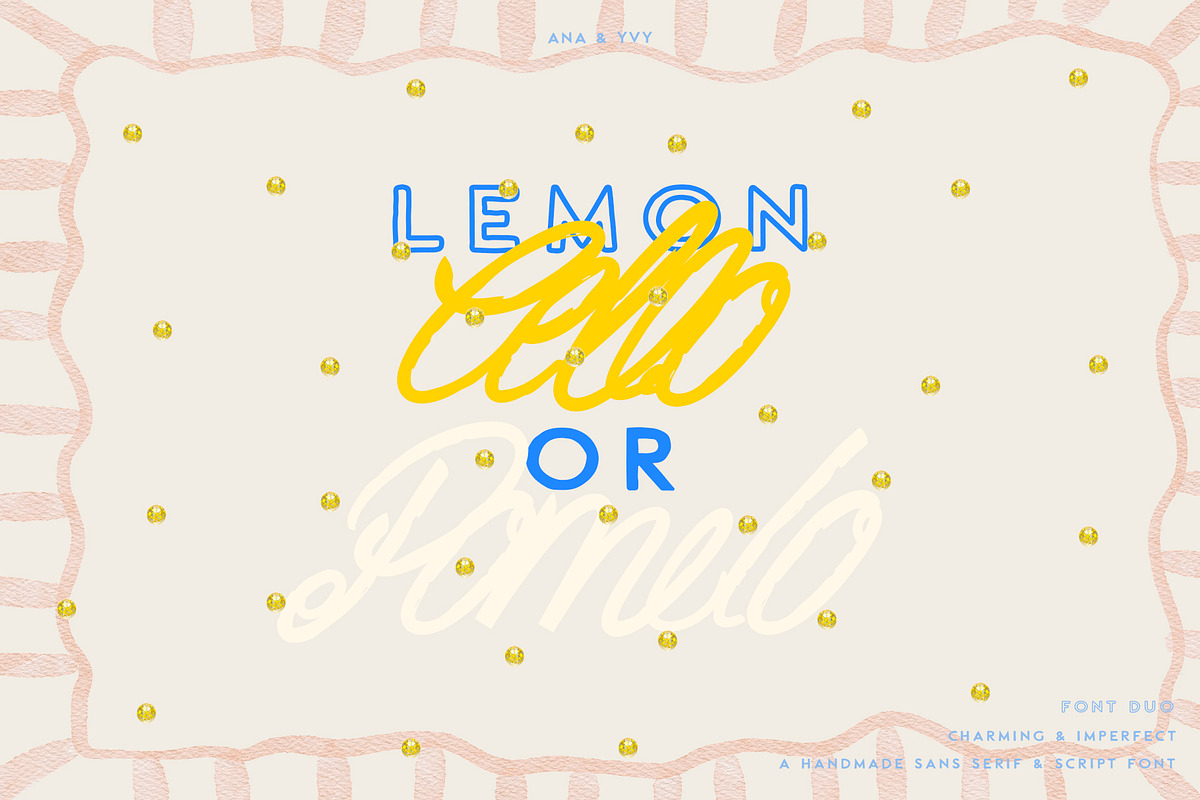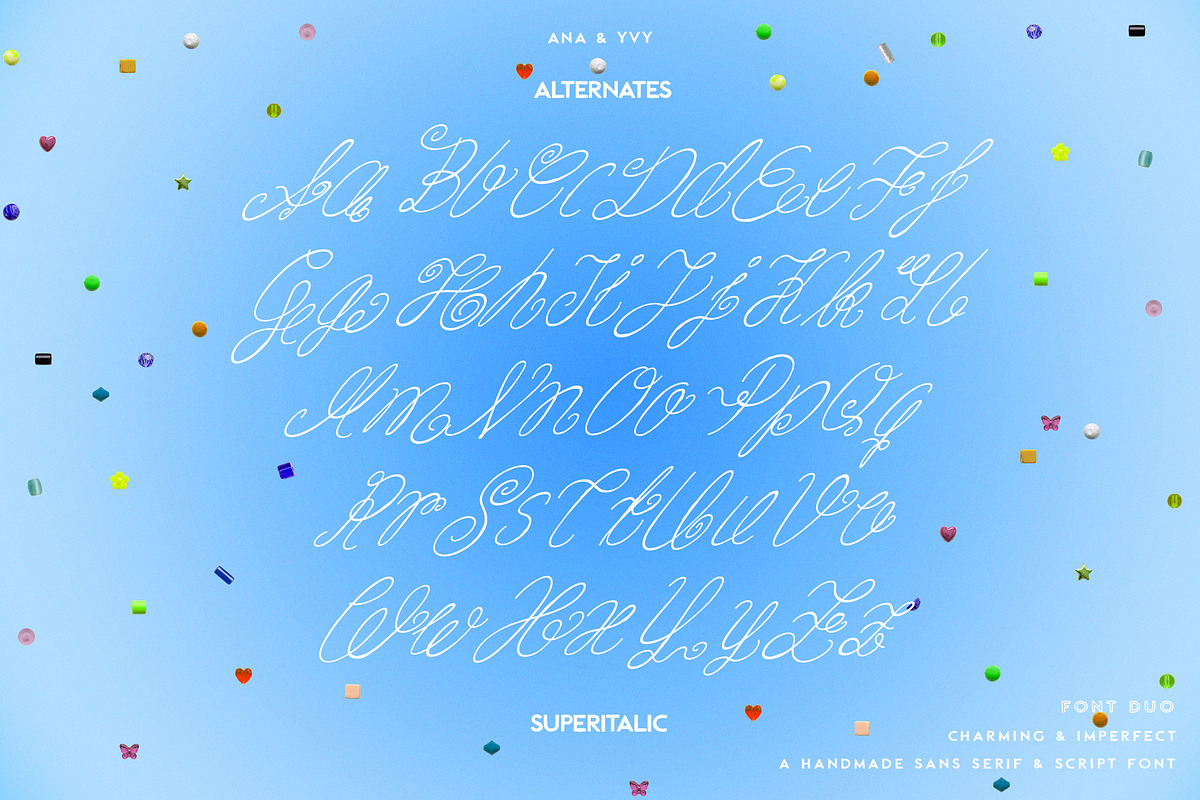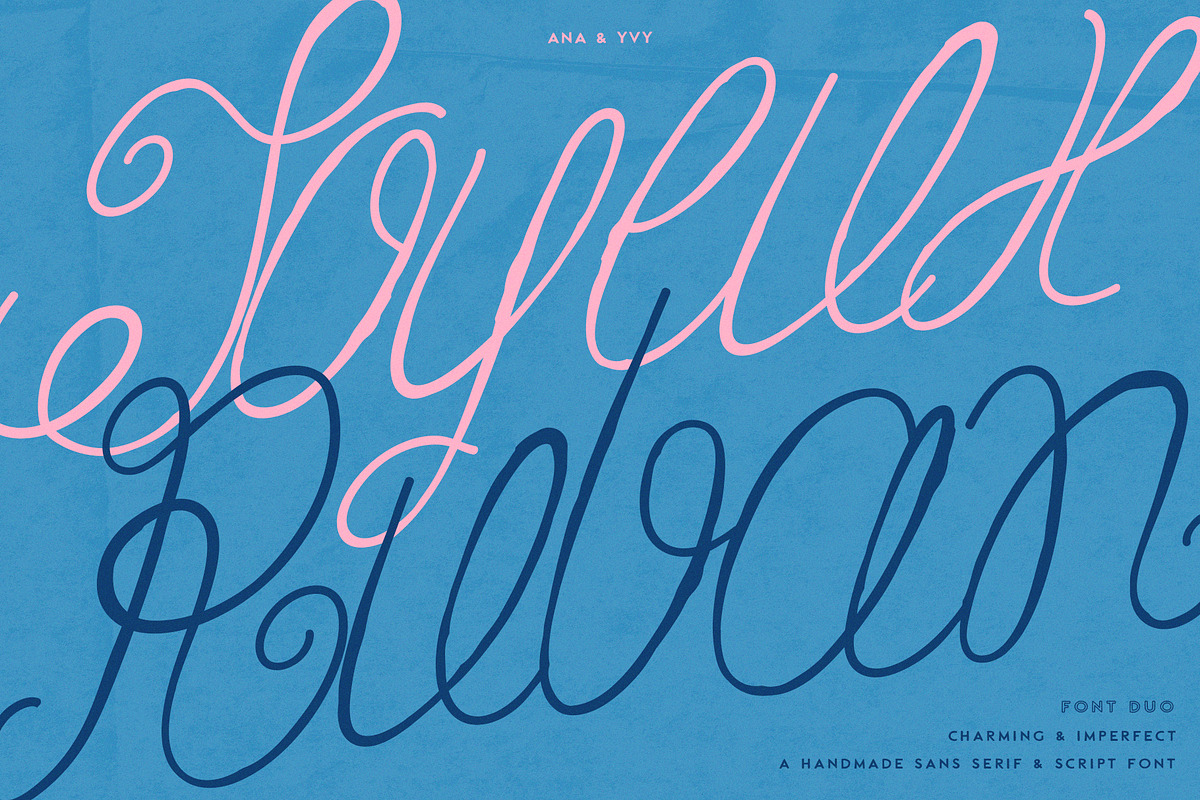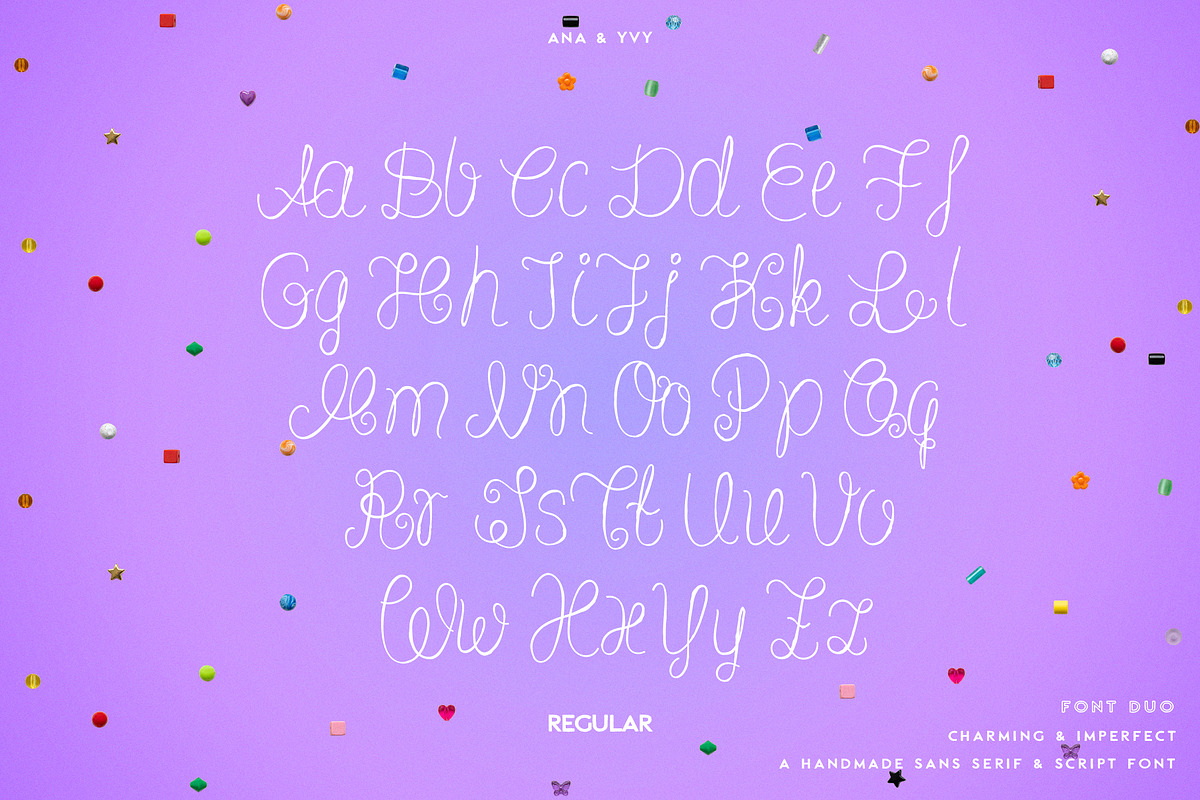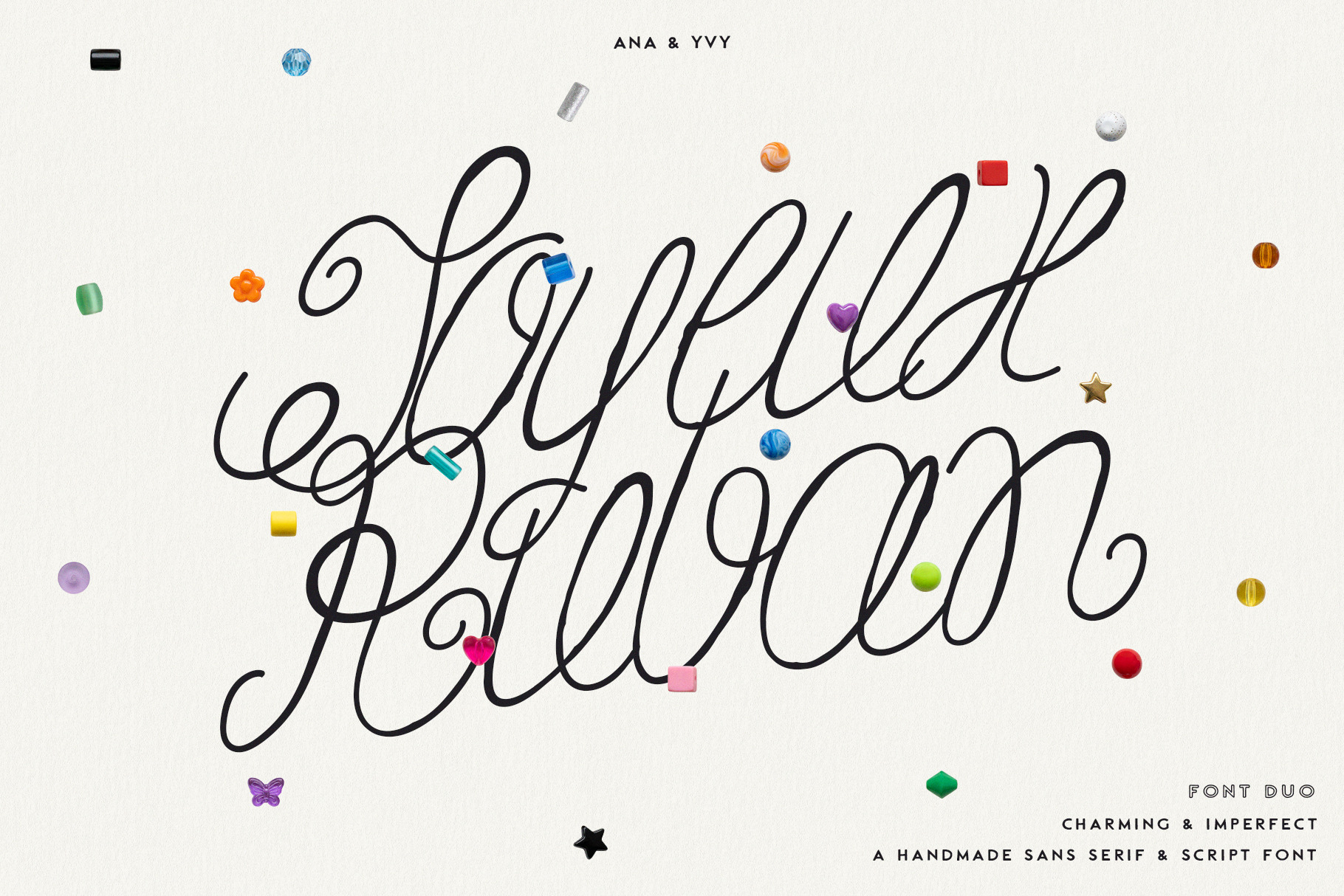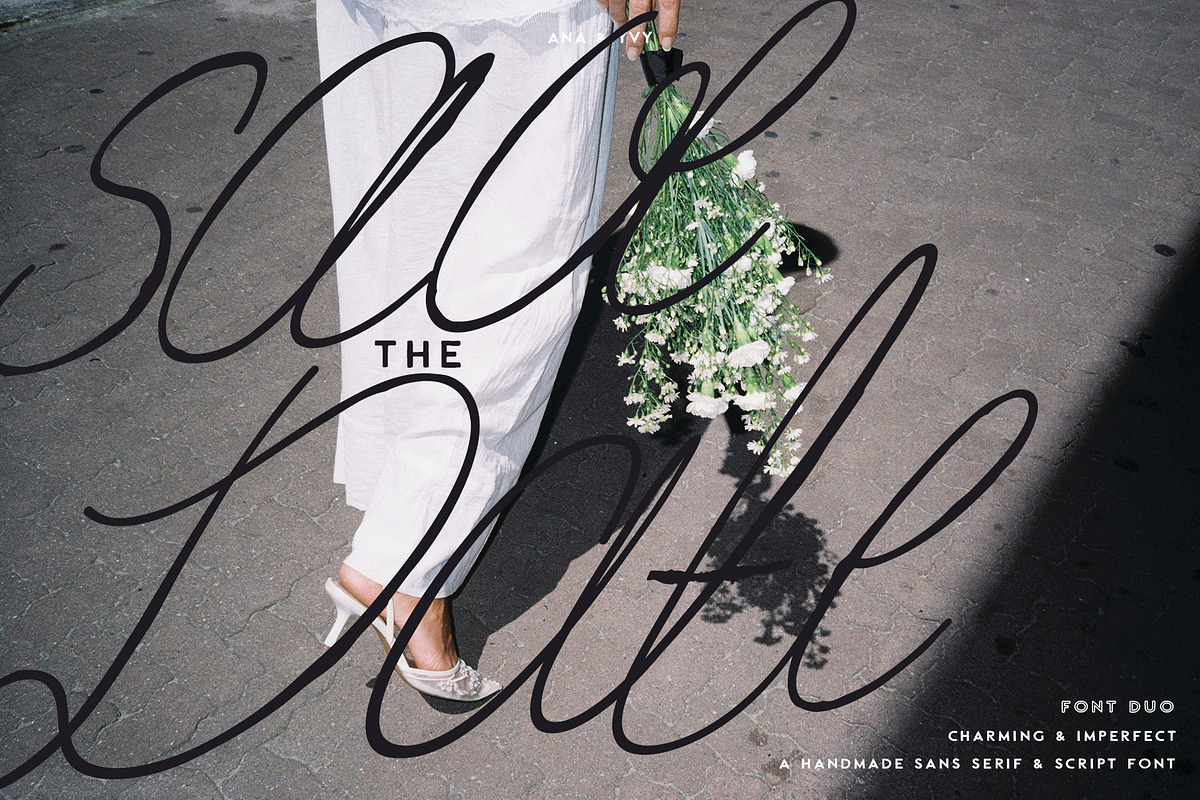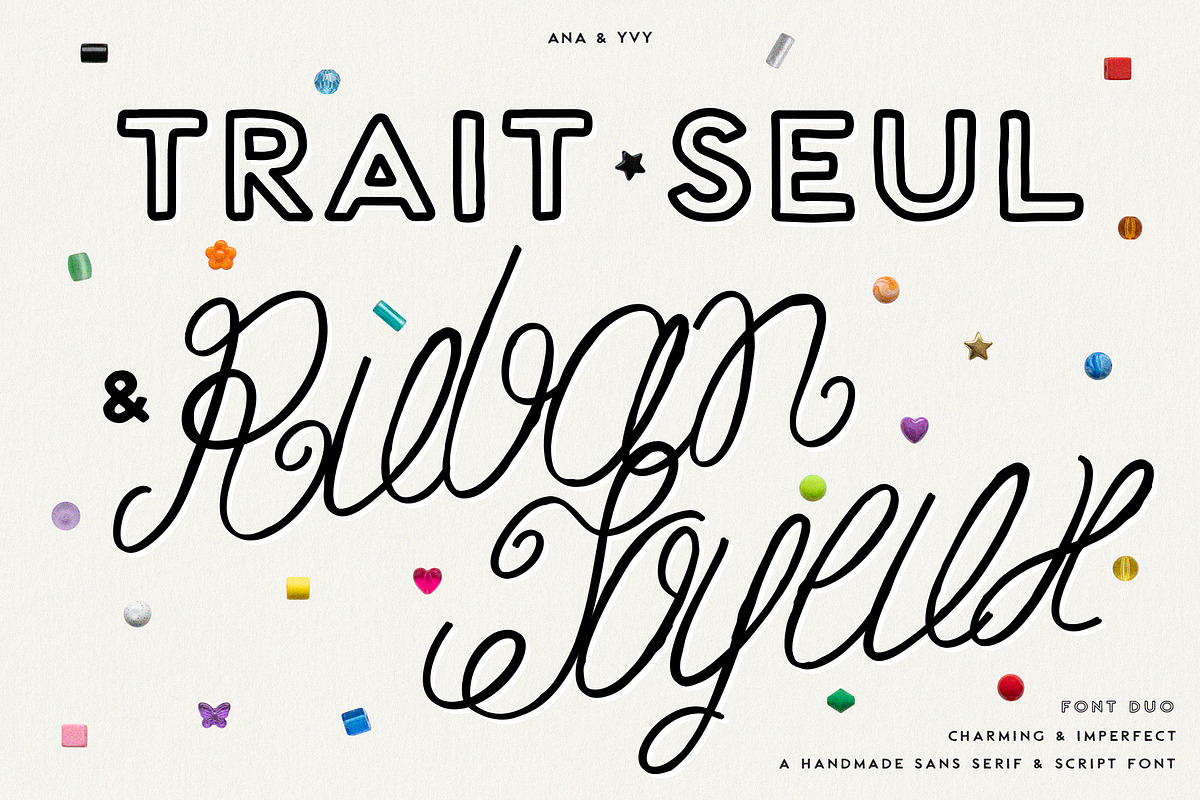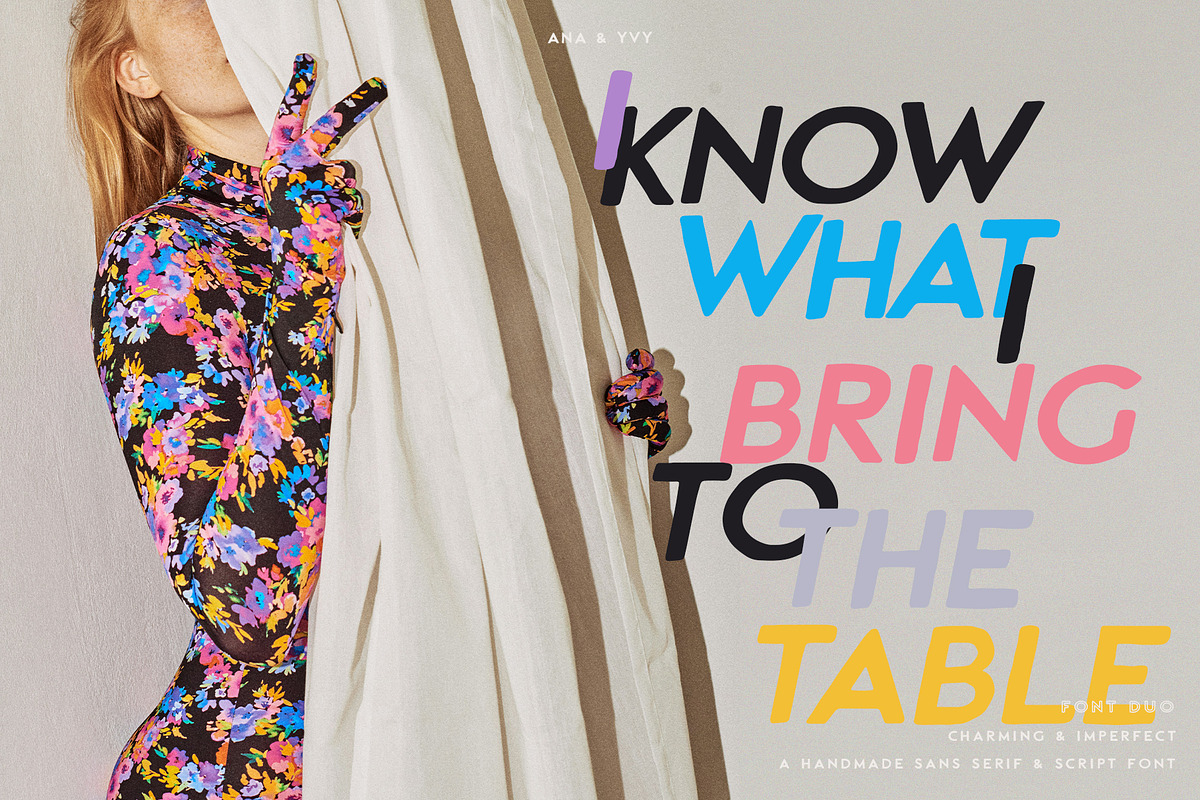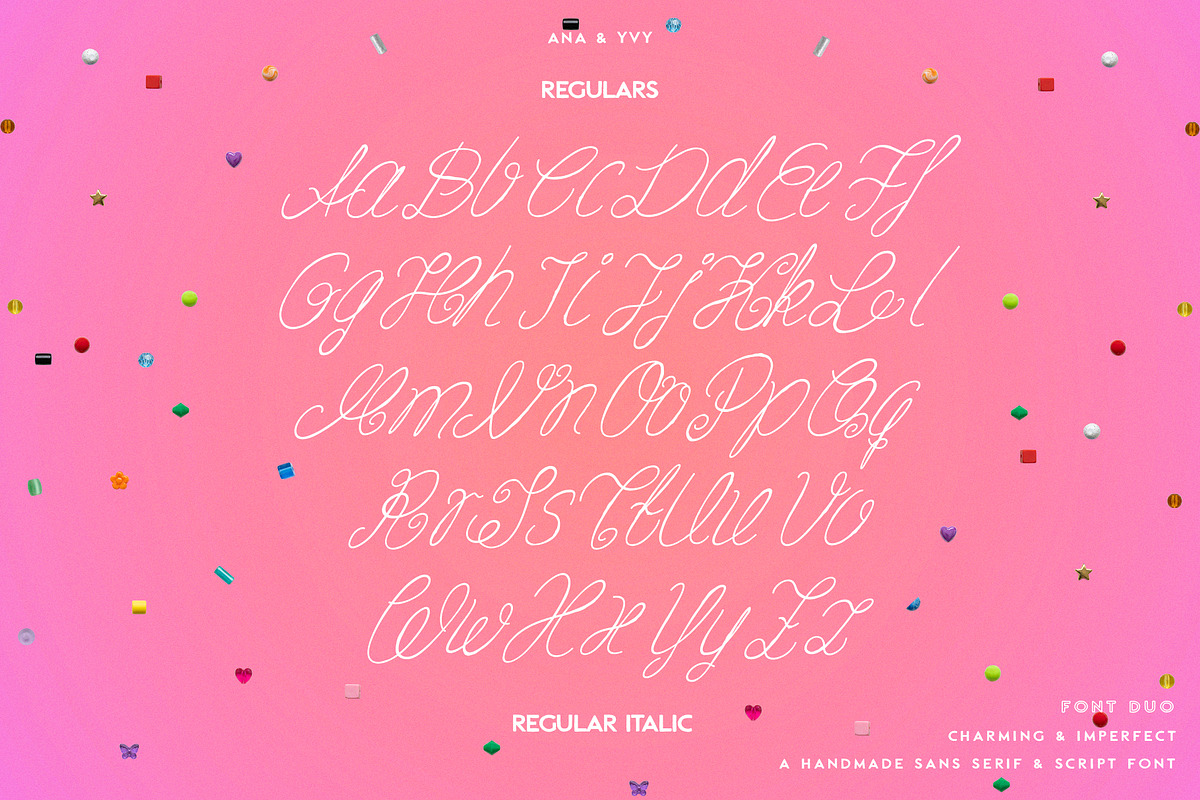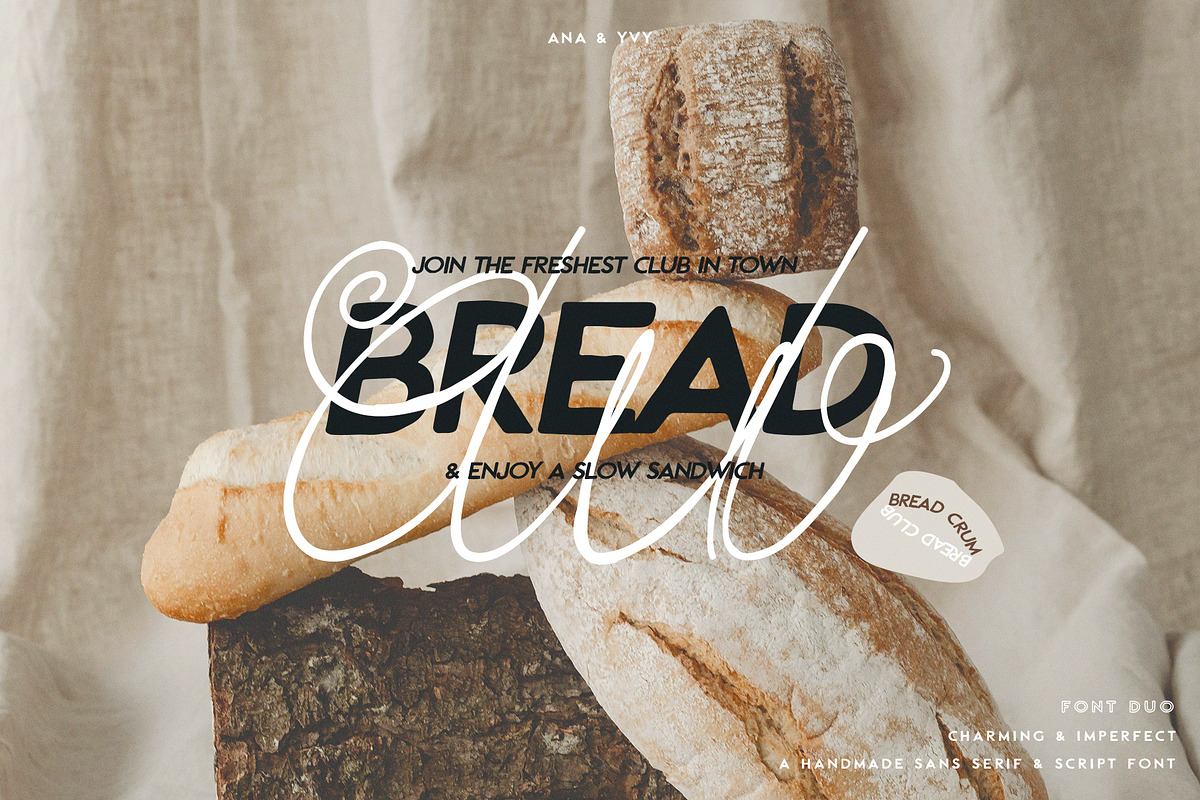
Ruban Soyeux Script & Sans Font Duo
Ruban Soyeux & Trait Seul - a Script & Sans Font Duo.
This modern aesthetic font duo combines commercial branding and messy into one. Rough and wonky edges gives both fonts the handmade look and feel (pssshhh; because it's made by hand) while still being sophisticated and modern whimsical.
With it's expressive and modern calligraphy style the experimental handlettering displays the beauty of dynamic, elegant and playful characters. Each letter features pronounced loops, curves and ornate ascenders, some of which intertwine with one another. Most individual letters are fluidly connected to one another in a continuous cursive style. The typography of Ruban Soyeux appears artistic, organic, and almost as if it were formed from fine wire.
Ruban Soyeux as a main typeface in this collection comes with many alternates in lower and uppercase letters and ligatures which allows you to create a handmade and unique look.
Trait Seul is a sans serif monospace basic font but still with rough edges and a human hand over it.
The Ruban Soyeux & Trait Seul font duo can be used in logos, wedding stationery, social media graphics, fashion branding, posters, quotes, packaging, or any creative project that needs a bold yet feminine handwritten touch but always bold and sophisticated.